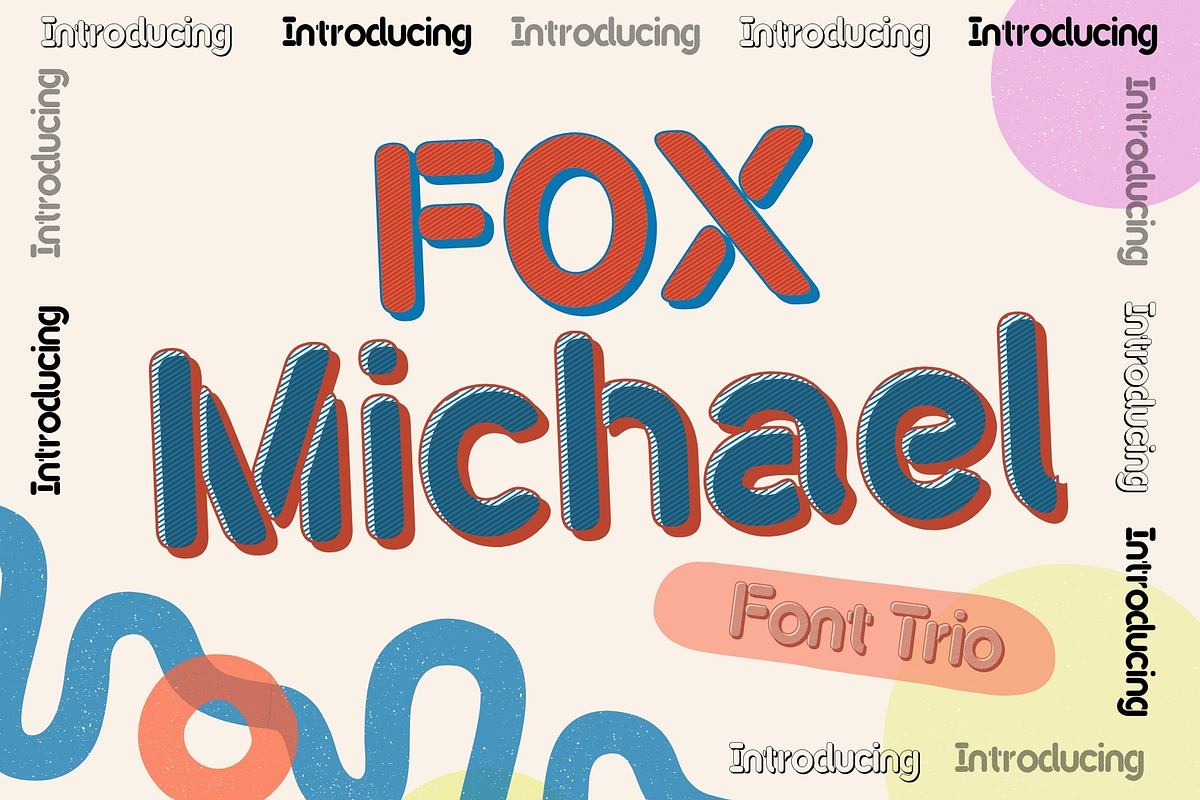
Fox Michael Fonts Trio Free Download is a versatile and stylish font pack offering three unique styles in one powerful bundle. With a balance of bold, script, and display options, this trio is perfect for logos, product packaging, Instagram quotes, branding projects, and creative prints that need both consistency and flair.
Whether you’re mixing the bold version for strong headlines, the script style for a personal touch, or the clean display for modern aesthetics, Fox Michael Fonts Trio Free Download makes your typography shine across every platform. It’s like having a whole creative team in one font family.
Ideal for fashion, lifestyle, handmade products, or any brand that wants to speak with personality and polish. Each font complements the others perfectly, allowing seamless combinations that feel custom-made.
Turn up the charm, balance elegance with edge, and give your designs the dynamic look they deserve with Fox Michael Fonts Trio.